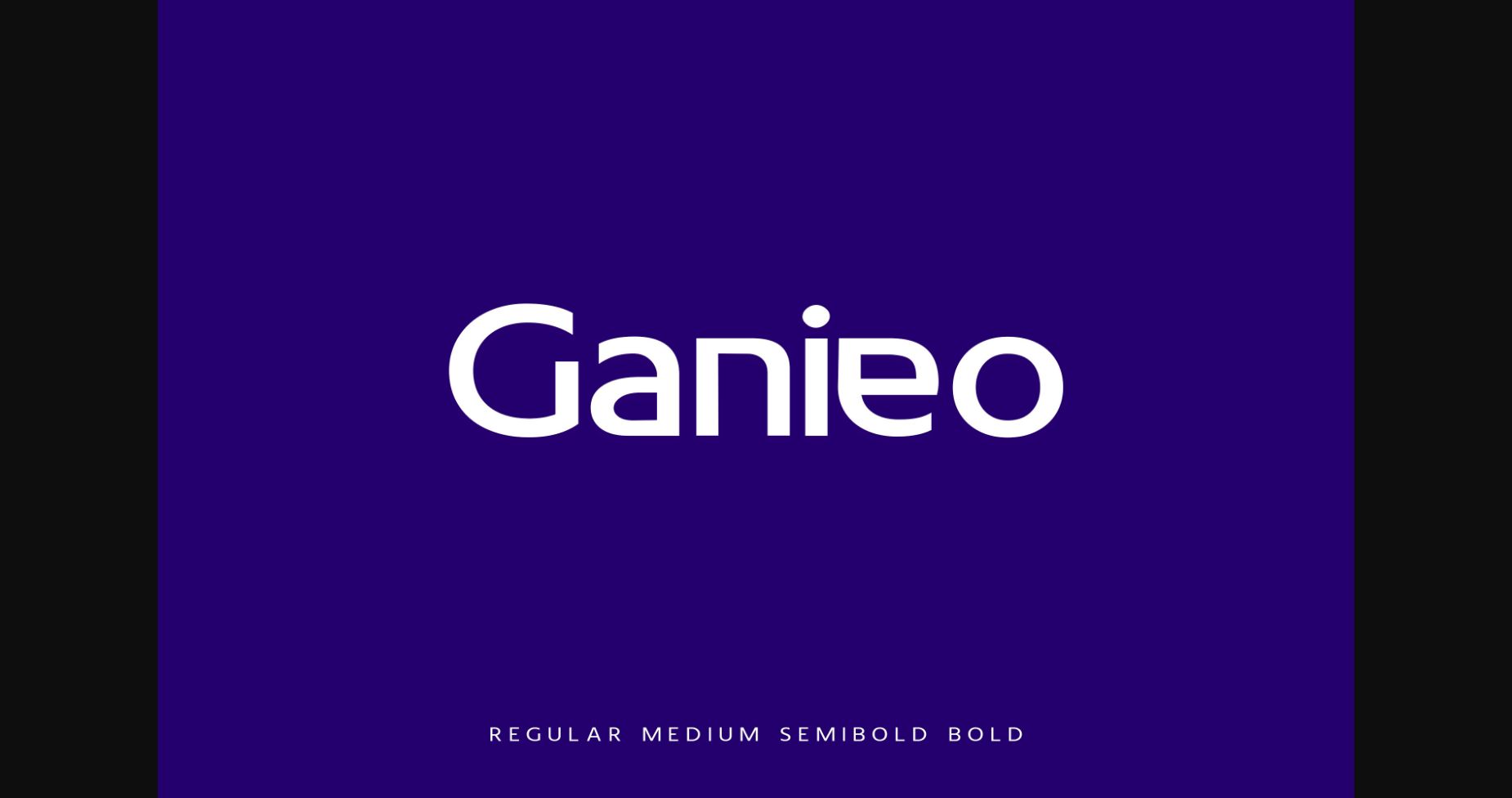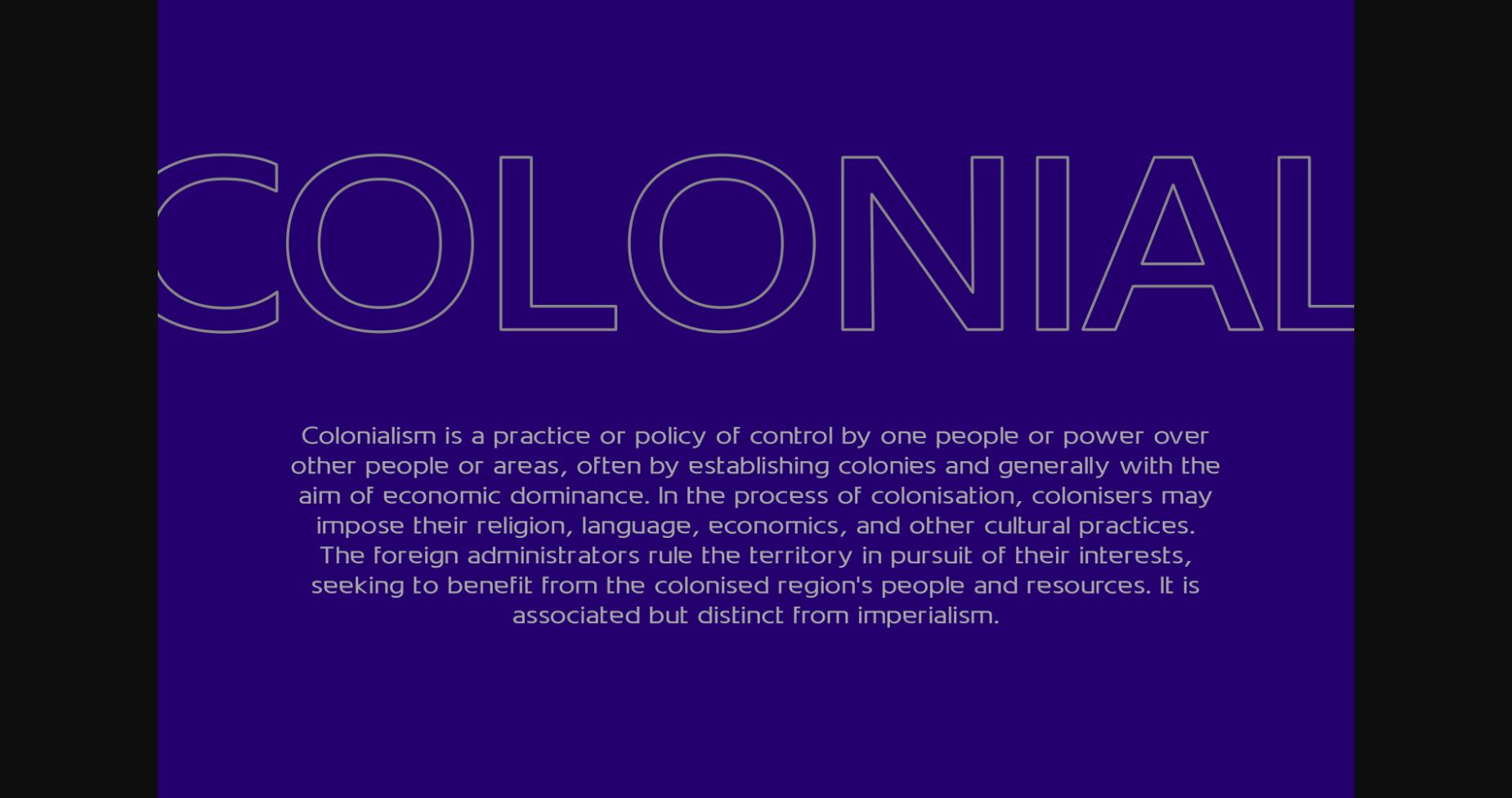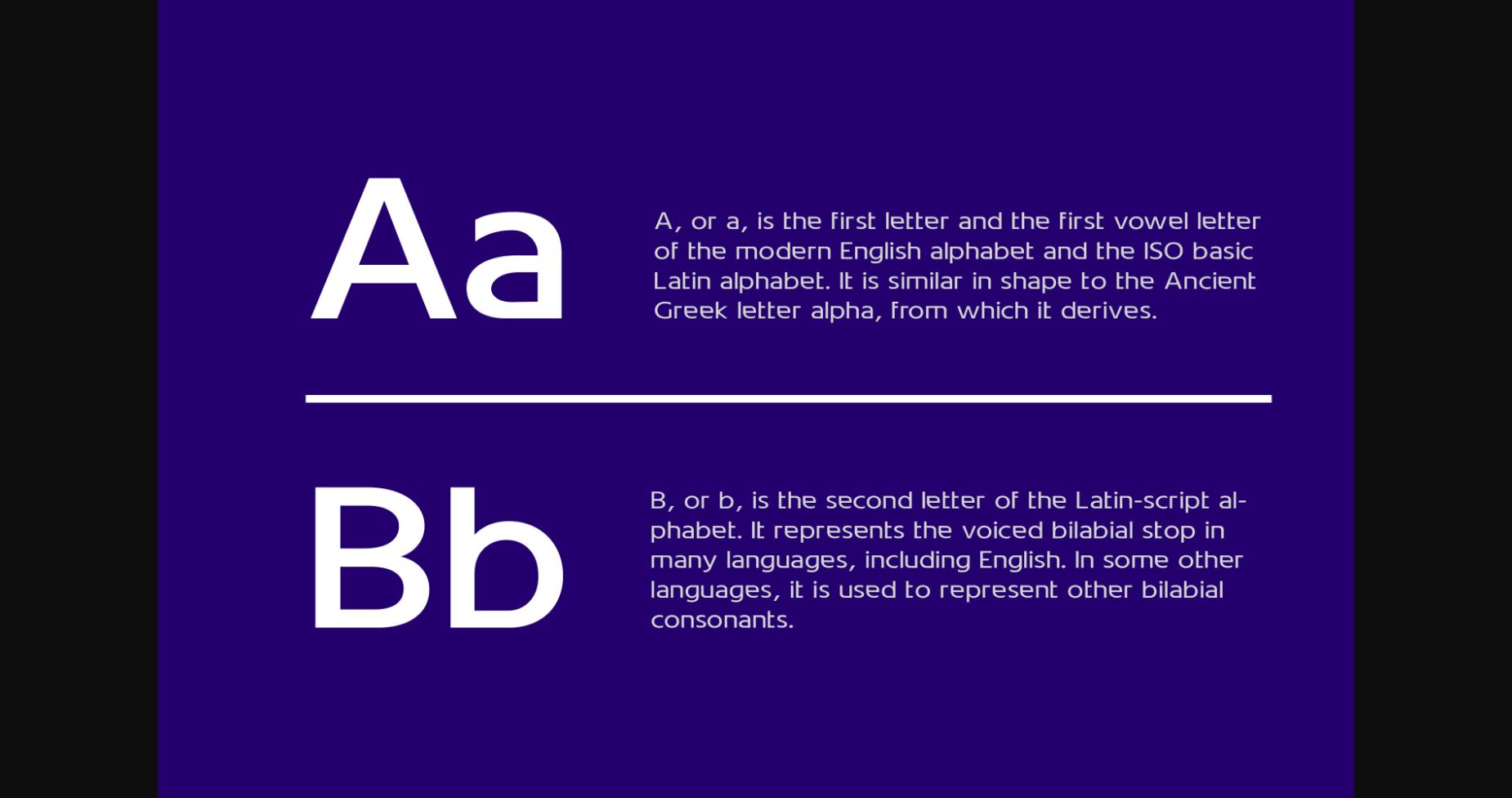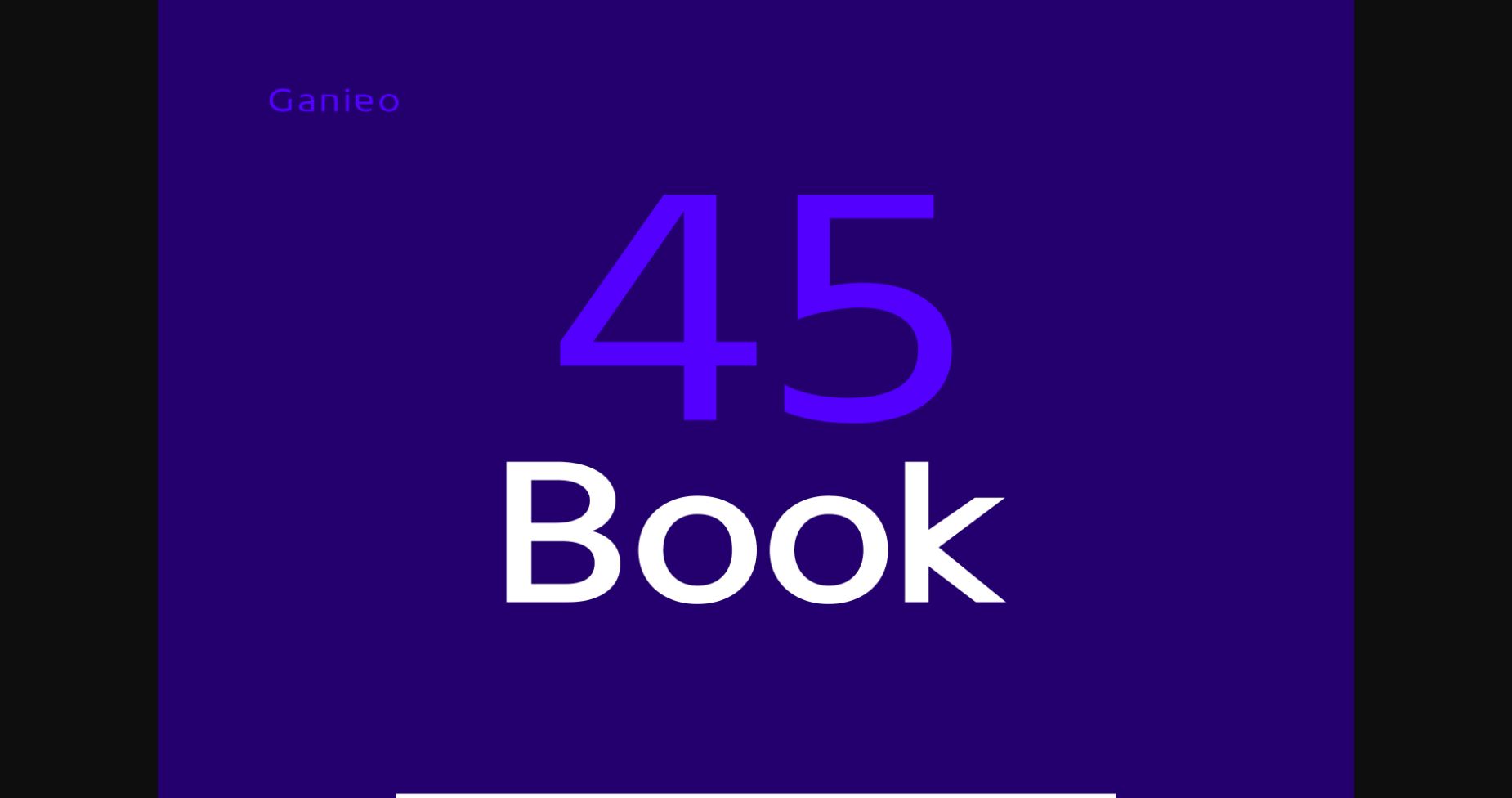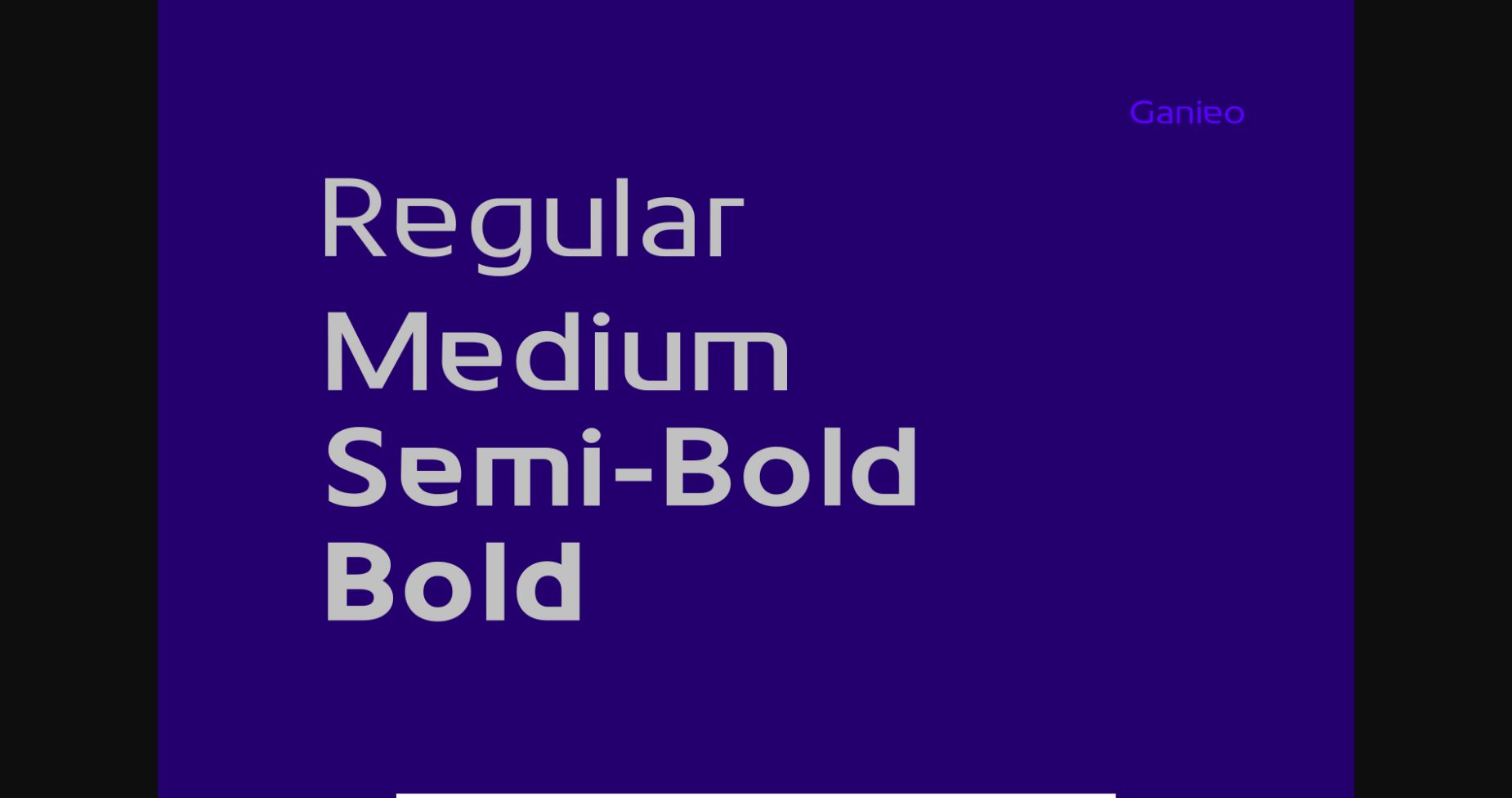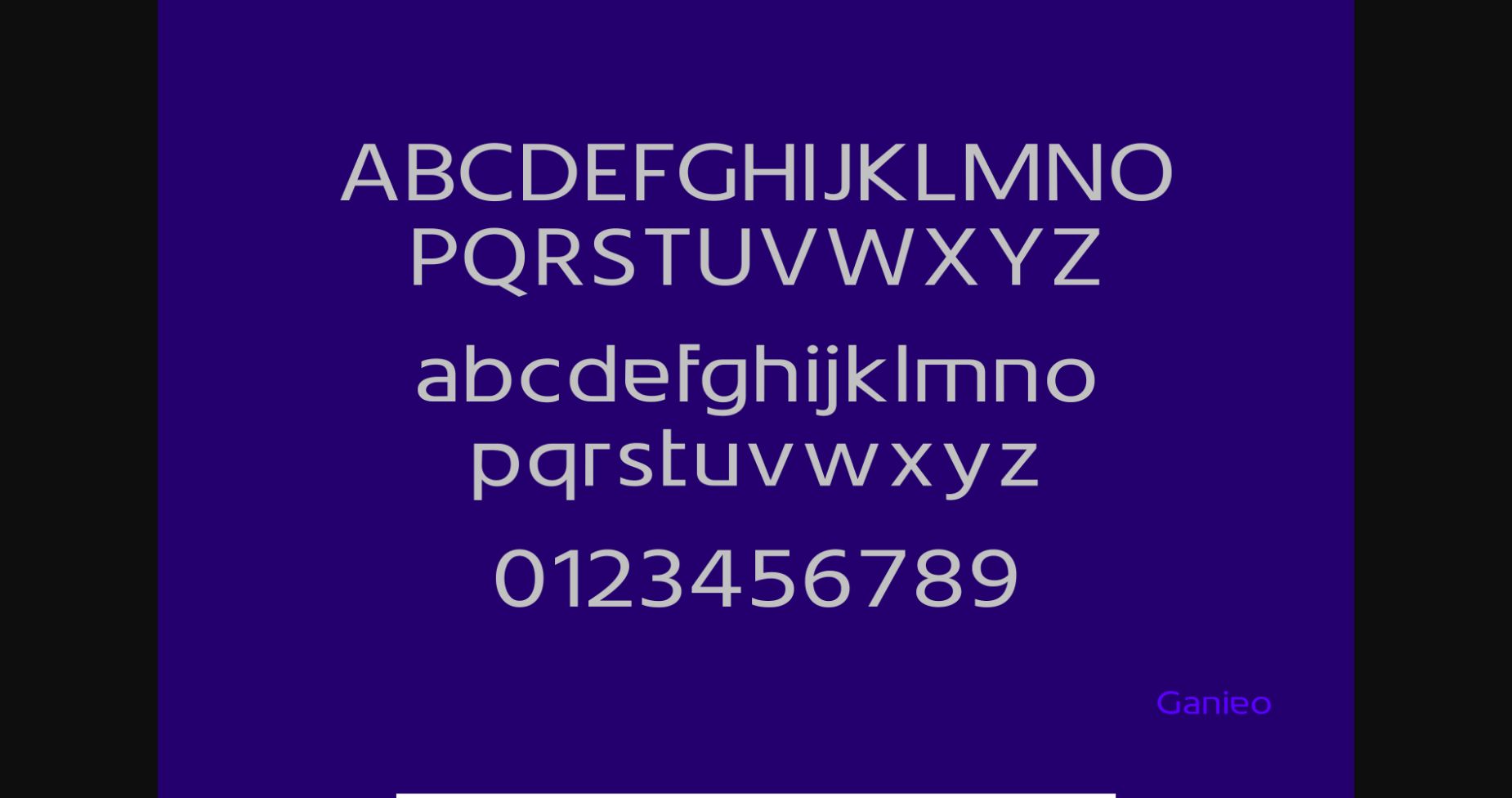
HomeSans Serif FontsGanieo Font Sans Serif Fonts Ganieo Font FacebookXPinterestWhatsApp 1 of 8 ... Ganieo Font Poster 2... Ganieo Font Poster 3... Ganieo Font Poster 4... Ganieo Font Poster 5... Ganieo Font Poster 6... Ganieo Font Poster 7... Ganieo Font Poster 8... About Ganieo Font Ganieo is a minimal and simple sans serif font that looks sleek and modern. Its neat and stylish characters make this typeface a wonderfully versatile addition to your fonts library! DOWNLOAD NOW People also explored Garllinga Font Lupines Font Berson Dream Font Flower Doodle Dingbat Font Gellato Font Foro Rounded Font Clubing Font Small Kitchen Font Romansta Beautya Font 503 0 TagsGanieoGanieo Font Previous articleTravel FontNext articleOrborn Font LEAVE A REPLY Cancel reply Comment: Please enter your comment! Name:* Please enter your name here Email:* You have entered an incorrect email address! Please enter your email address here Website: Save my name, email, and website in this browser for the next time I comment. Personal Use Free Ontel Personal Use Free Read more about this font Cheese Matcha Font Personal Use Free Read more about this font Girl Personal Use Free Read more about this font Bridgetown Font Personal Use Free Read more about this font BLOG Using Fonts in Digital Marketing: Tips to Strengthen Your Brand Identity In the realm of digital marketing, every visual element plays a crucial role in shaping a brand's identity, and fonts are no exception. The... Where to Buy American Fonts Online in 2024 To increase your work productivity, choose the most readable fonts. Exploring Font Trends